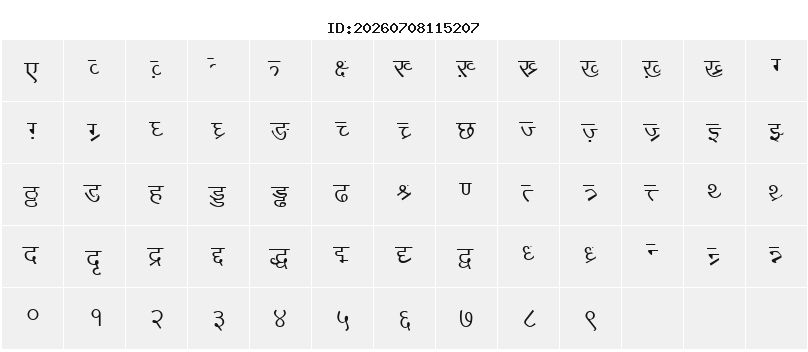
DV_Divya Preview
• Font Name: DV_Divya
• Font ID: Alts:DV_Divya Normal
• Full Font Name: DV_Divya Normal
• Version: 1.0 Sun Feb 18 18:42:09 1996
• PostScript Name: DV_Divya-Normal
• Character Count: 213
About DV_Divya.ttf
DV_Divya.ttf is a modern, elegant sans-serif font designed for ultimate readability and visual harmony. Perfect for branding, headlines, web design, and print materials.